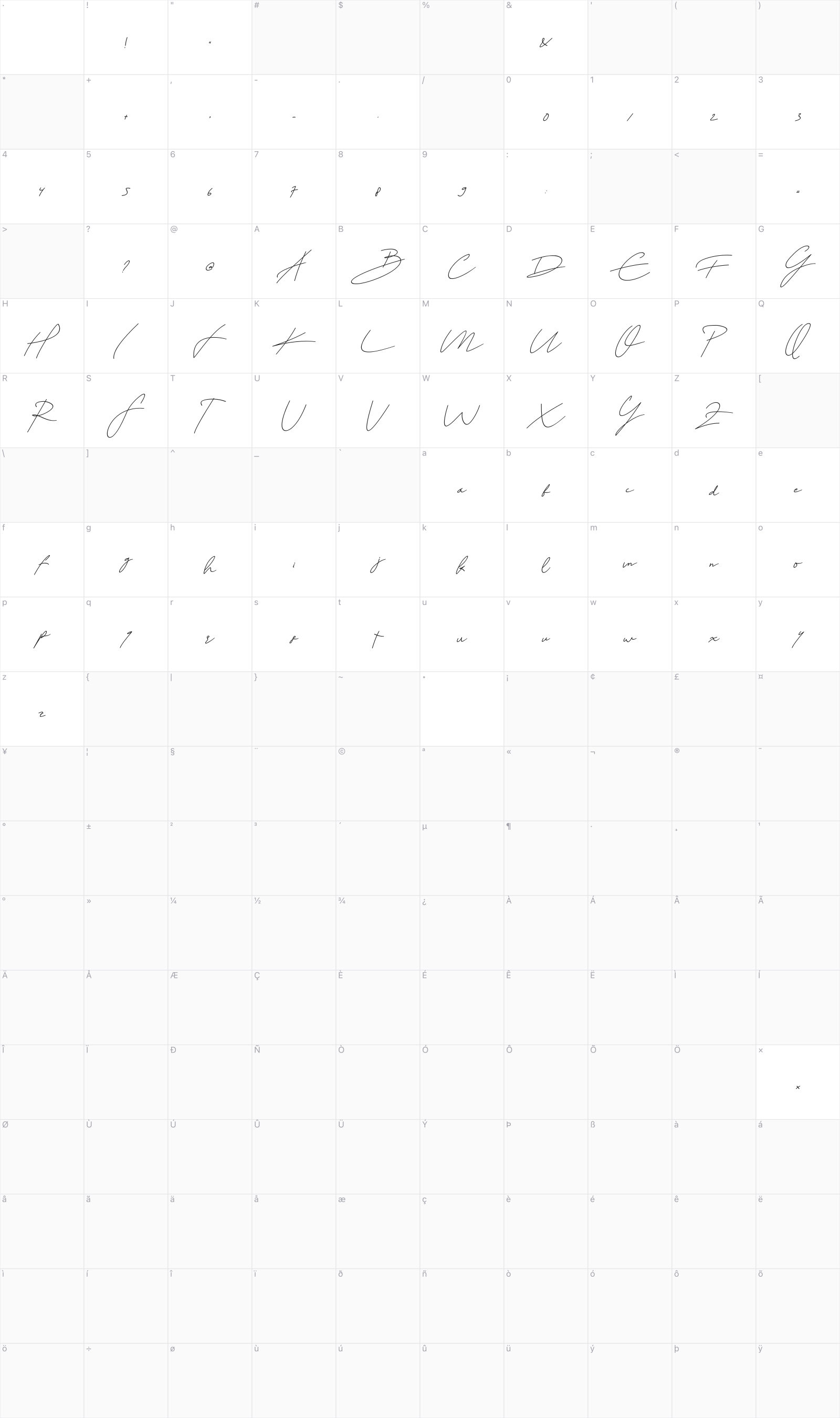
Kathy Perry
by Sarif Letter
Kathy Perry is a flowing cursive script from Nox Studio with hairline-thin strokes and a natural signature quality. Long looping ascenders and fluid connections between letters give it an effortless, handwritten feel that reads as personal without being precious. It works well at large display sizes where the delicate strokes can breathe.